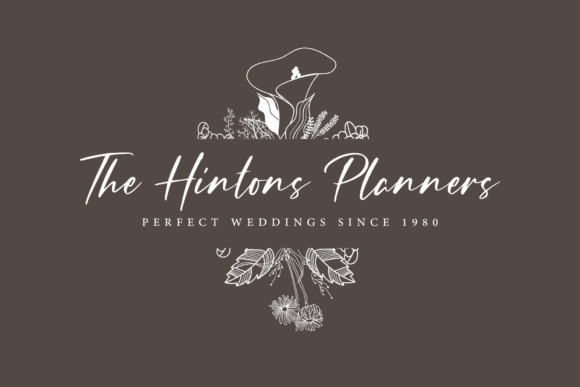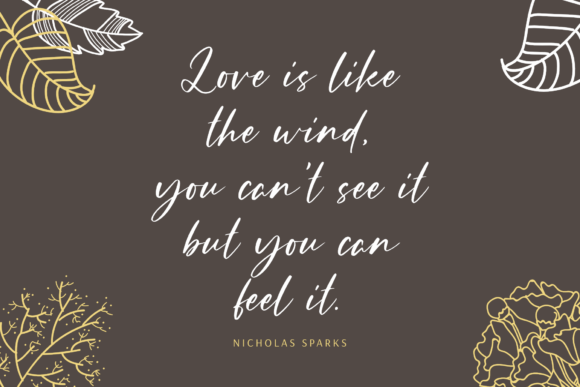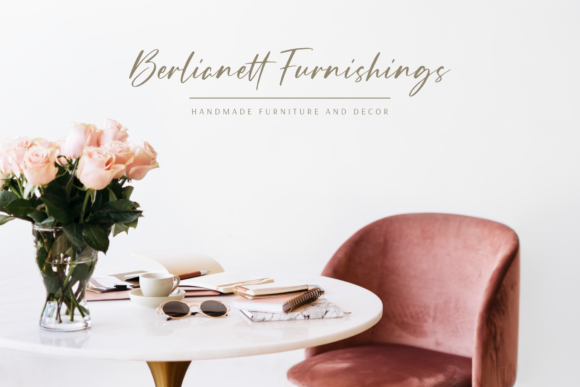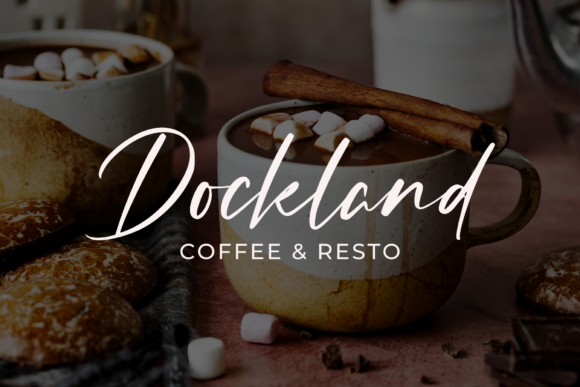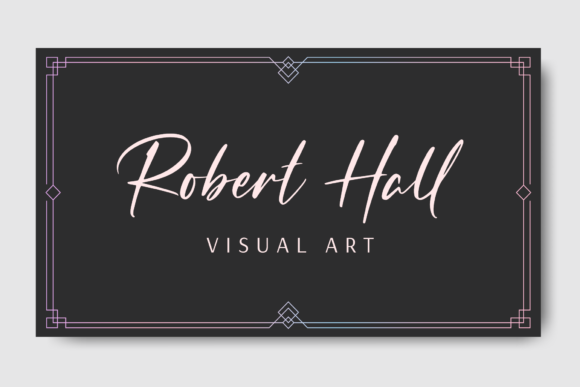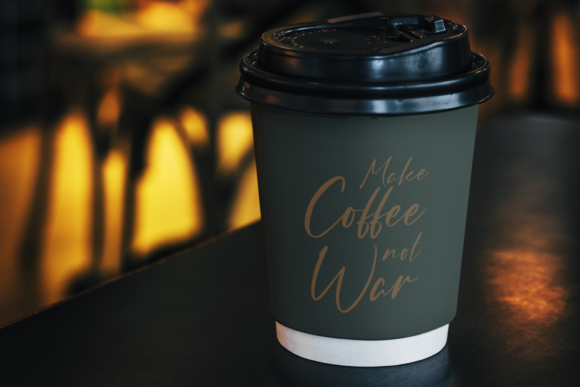
Discover the Magic of Rostendall Font
Do you ever find yourself staring at a blank canvas, waiting for the perfect idea to strike? For designers, those moments of inspiration can be the most exhilarating and creative. It’s in those instances that we’re reminded why we love our craft so much. And what better way to bring your ideas to life than with the perfect font?
That’s where the Rostendall Font comes in – a classic handwritten font that’s sure to elevate any design project. With its high-quality design and transparent background, this font is a valuable resource for any creative project. Whether you’re working on a free download or a paid commission, the Rostendall Font is the perfect addition to your design arsenal. And the best part? It’s free to download, making it accessible to designers of all levels.
Key Features of Rostendall Font
- High-quality font for creative projects: Rostendall Font is perfect for designers and artists looking for a unique and stylish font to enhance their work.
- High-resolution design: Rostendall Font is designed with high resolution in mind, making it suitable for use in large-scale designs and printing.
- Unique and stylish design: This font features a distinctive and elegant design, making it an excellent choice for designers who want to add a touch of sophistication to their work.
- Perfect for digital and print projects: Rostendall Font is suitable for use in both digital and print projects, including website design, social media graphics, and print materials.
Honest Review: Rostendall Font
I recently had the opportunity to work with the Rostendall Font, and I must say it’s been a game-changer for my creative projects. The high quality of this font is undeniable, making it a fantastic design resource for any serious designer.
- ✨ Clear and crisp typography: The Rostendall Font features a transparent background, allowing for seamless integration into any design project.
- ✨ Versatility: This font is perfect for a wide range of creative projects, from logos and branding to editorial content and digital displays.
- ⚠️ Limited font styles: The Rostendall Font comes in a limited number of styles, which may not be ideal for designers who require a wider range of options.
- ⚠️ Not suitable for small text: While the font looks great in larger sizes, it may become difficult to read when used in smaller text sizes.
Overall, I’m impressed with the Rostendall Font, and I would definitely recommend it to designers looking for a high-quality, versatile font for their creative projects.
Rostendall Font is commonly used for creative projects such as graphic design, digital art, and typography. Its high quality and transparent background make it an ideal choice for designers looking to create unique and eye-catching designs.